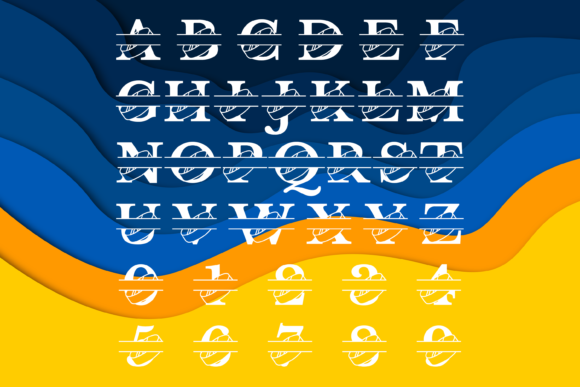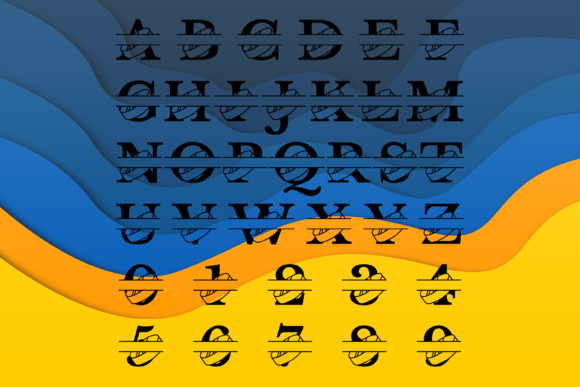
Hockey Goal Font: Bringing a Touch of Sporty Sophistication to Your Creations
Have you ever been working on a project, and suddenly, you stumble upon the perfect font to bring it all together? For designers and creatives, that moment is pure magic. It’s like finding a missing puzzle piece that elevates your entire design from good to great. For me, that moment came when I discovered the Hockey Goal Font – an incredibly cool decorative font that adds a touch of sporty sophistication to any project.
The Hockey Goal Font is a versatile and stylish typeface that can be used for custom designs, DIY crafts, or any creation that requires a lovely touch. Its unique design makes it an amazing choice for designers who want to add a bit of personality to their work. Whether you’re creating a logo, a poster, or a social media graphic, the Hockey Goal Font is sure to impress.
Hockey Goal Font Key Features
- Font Family: Hockey Goal Font is a unique, custom-designed font specifically created for hockey-related graphics and designs.
- Font Size: The font is designed to be scalable, allowing users to adjust the font size from 12pt to 72pt without compromising its legibility or aesthetic appeal.
- Resolution: Optimized for high-resolution displays, ensuring crisp and clear text rendering at resolutions up to 300 DPI (dots per inch).
- Unique Characteristics: The Hockey Goal Font features a bold, dynamic design with exaggerated letterforms and intricate details, making it ideal for hockey-themed graphics, logos, and signage.
- Font Weight: Available in three font weights: Regular, Bold, and Outline, providing users with flexibility to choose the perfect style to suit their design needs.
Hockey Goal Font Review
As a designer, I’ve had the chance to work with a variety of fonts, and I’m here to give you the lowdown on the “Hockey Goal Font”. Overall, I think it’s a solid choice for the right project, but it’s not without its limitations.
- The font’s bold and playful personality shines through, making it perfect for projects that need a bit of attitude.
- The font’s custom lettering gives it a unique feel that’s hard to replicate with standard fonts.
- The font is highly legible, even at smaller sizes, making it a great choice for signage or promotional materials.
- The font’s custom nature means it may not be compatible with all systems or devices, which could lead to display issues.
- The font’s boldness can sometimes make it feel overwhelming, so be careful not to overuse it.
- The font’s uniqueness can also make it feel gimmicky or trying too hard, so use it thoughtfully.
I think the “Hockey Goal Font” is a great choice for projects that need a bit of edge and personality. While it’s not perfect, its unique character and high legibility make it a solid addition to any designer’s toolkit.
Tips for Getting the Most Out of Hockey Goal Font
Use bold and italic styles to add emphasis to your text.
Combine Hockey Goal Font with other fonts to create a unique and eye-catching design.
Hockey Goal Font is ideal for sports-related designs, such as:
Team logos and branding
Scoreboards and scorekeeping templates
Event programs and schedules